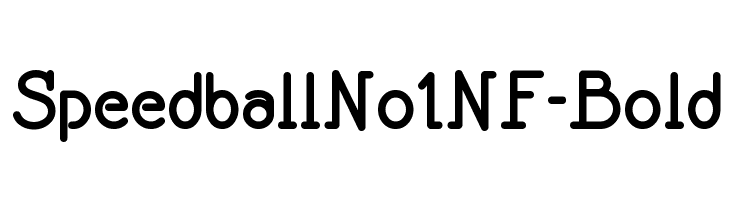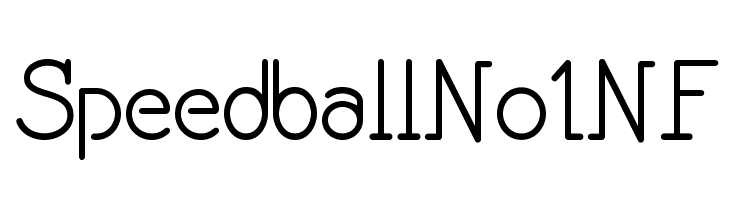
A bold, playful font with rounded edges and a consistent stroke width.
A playful, geometric font with rounded letterforms and a modern yet vintage appeal.